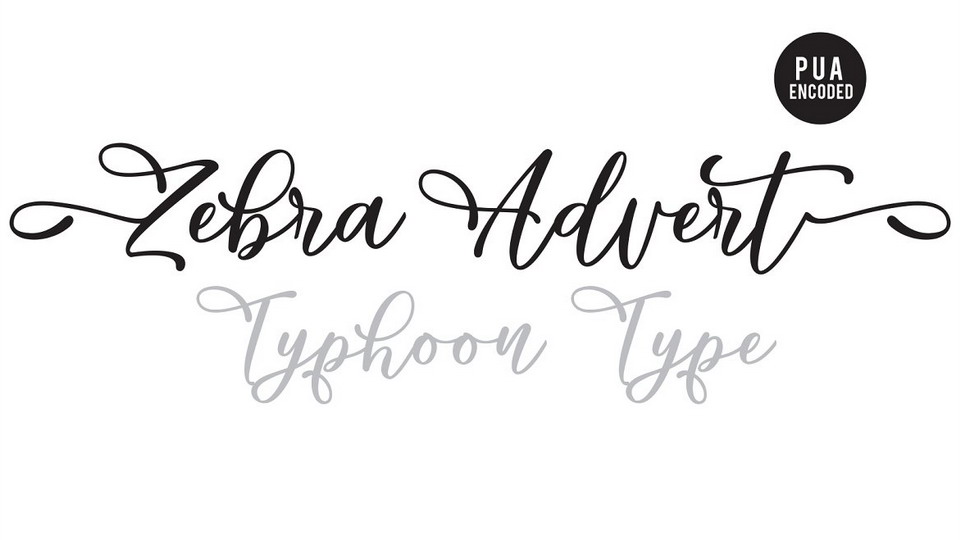
Download Zebra Advert font, an amazing modern calligraphy script with a bouncy flow. Zebra Advert is perfect for logos, name tag, advertising, product packaging, clothing, social media & greeting cards.
Designer: TyphoonType